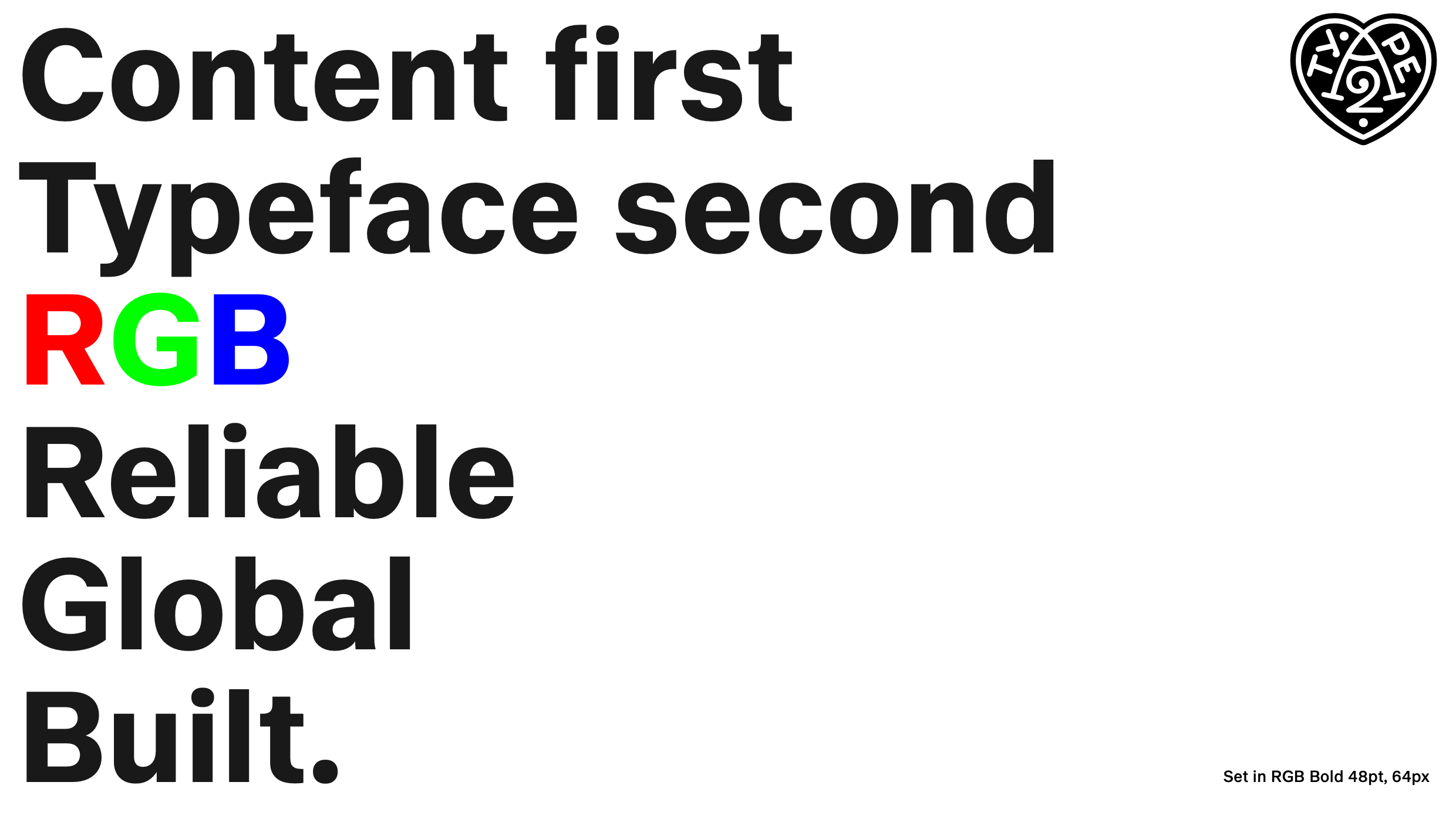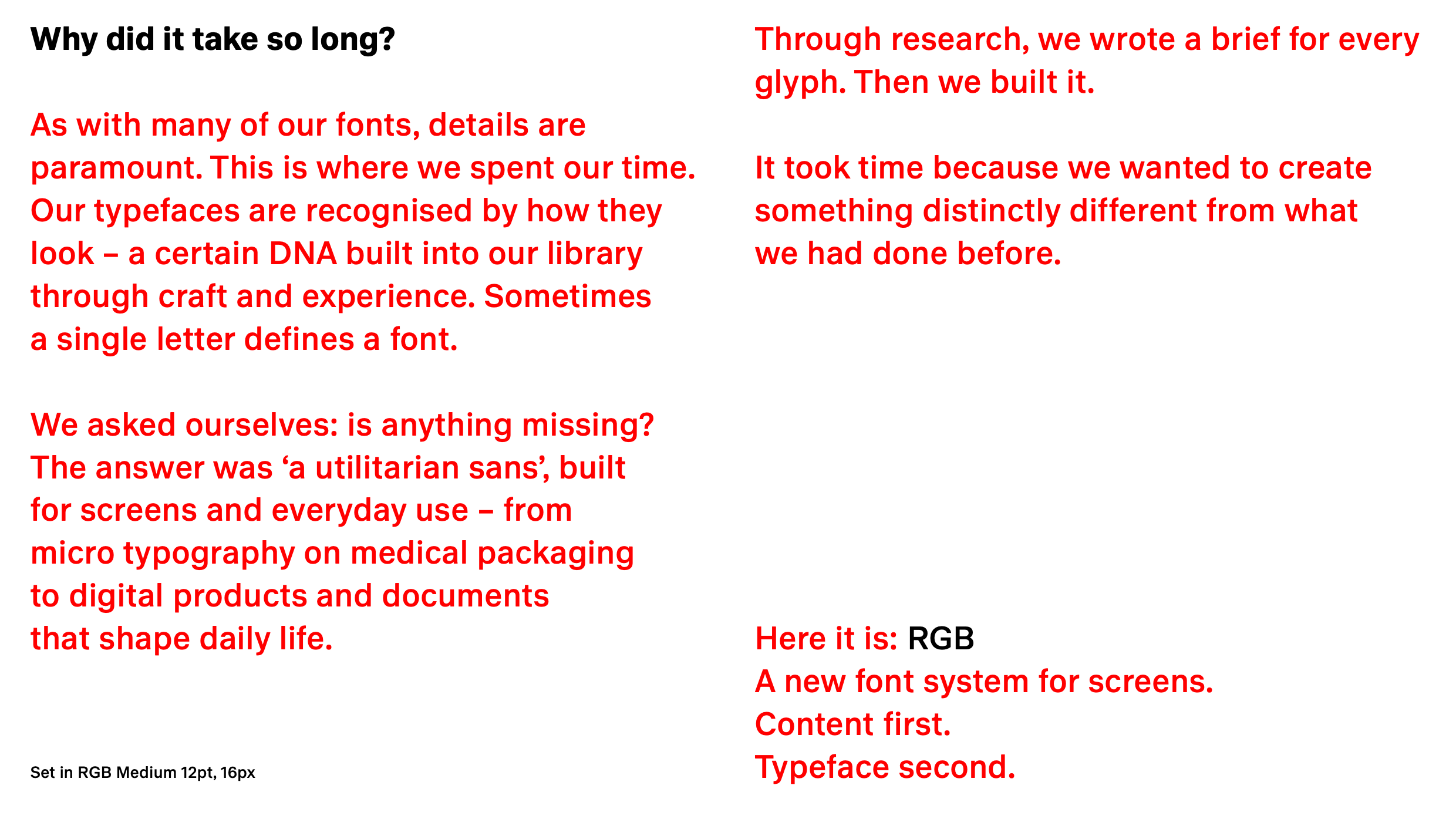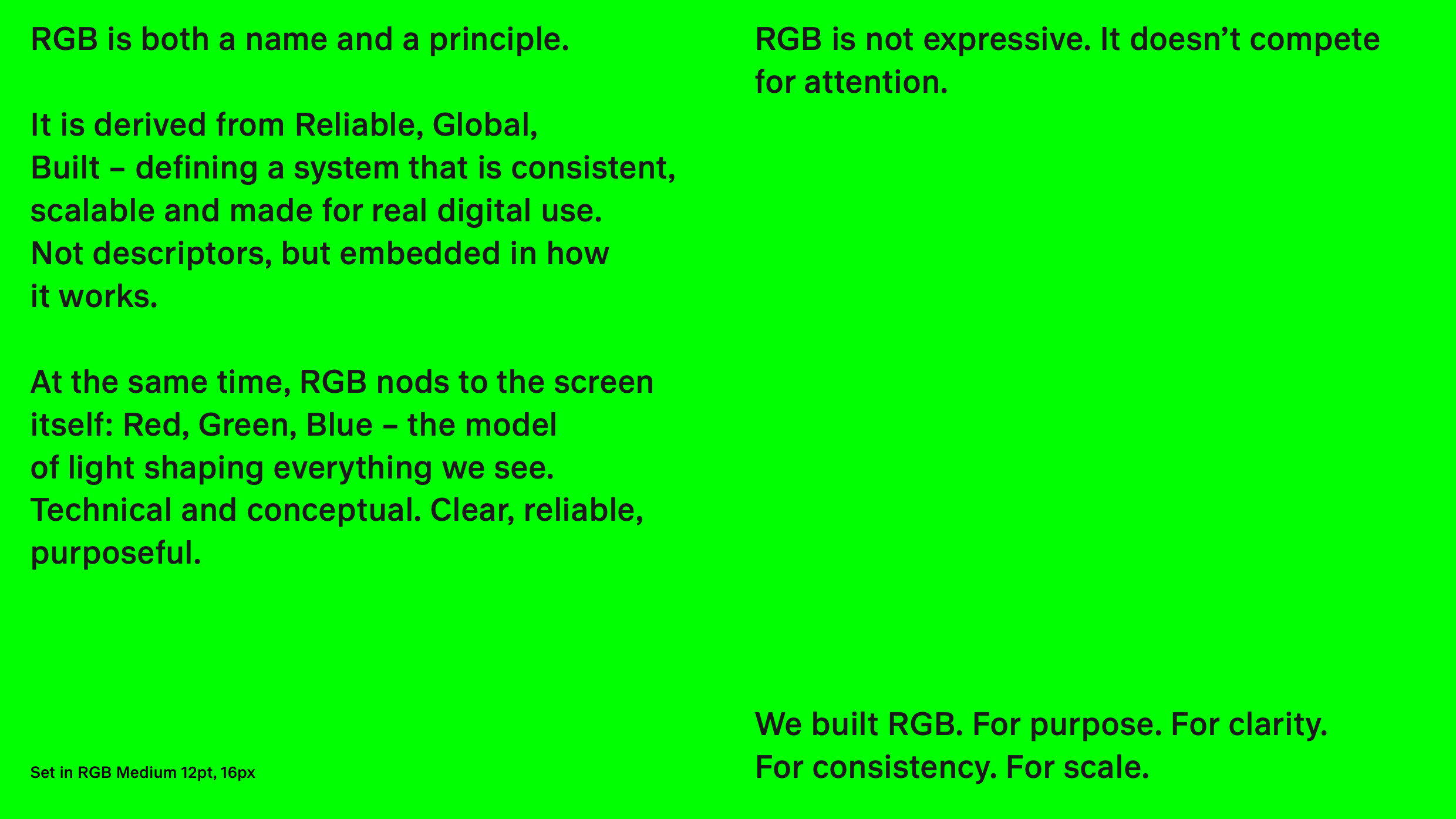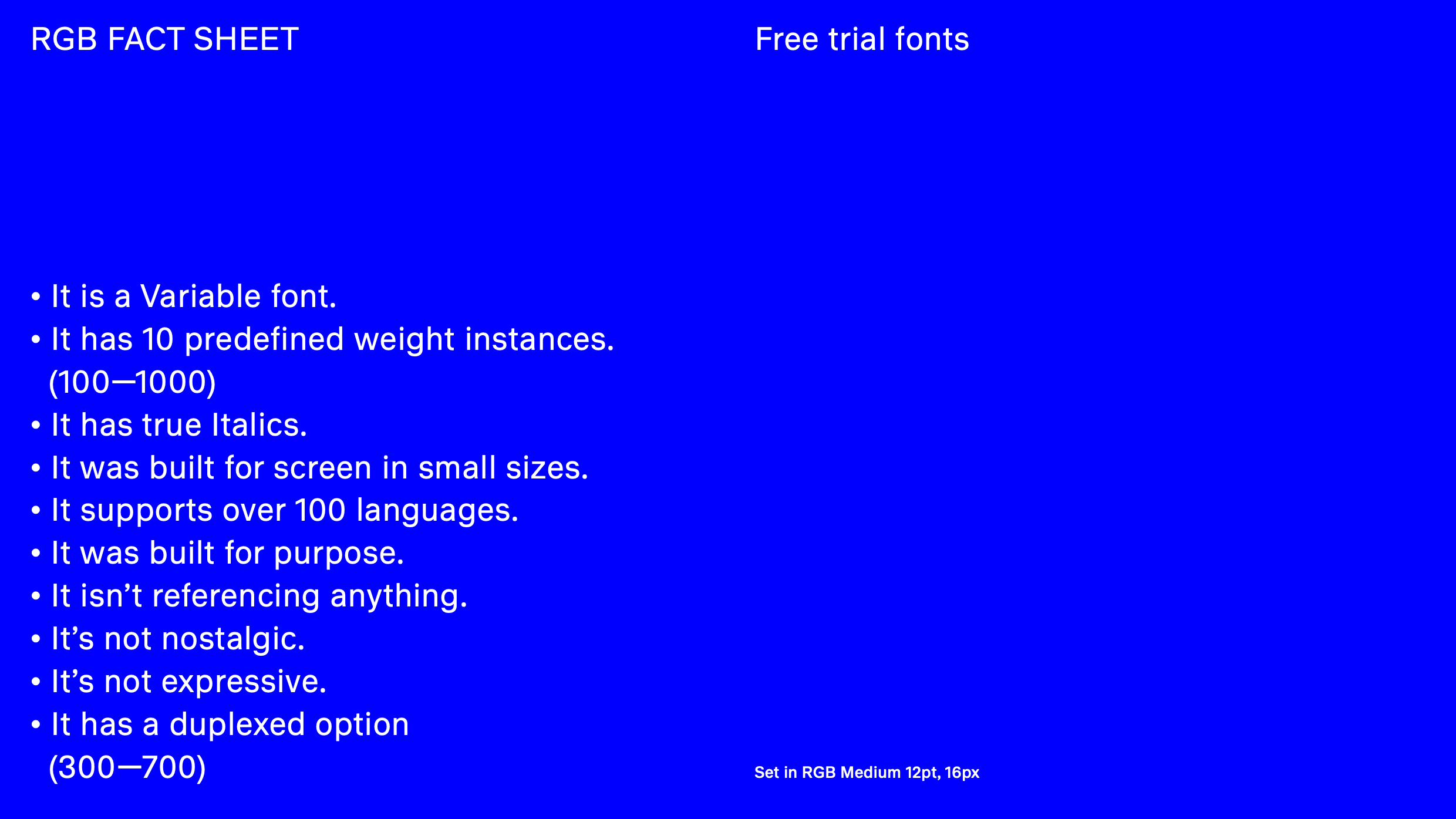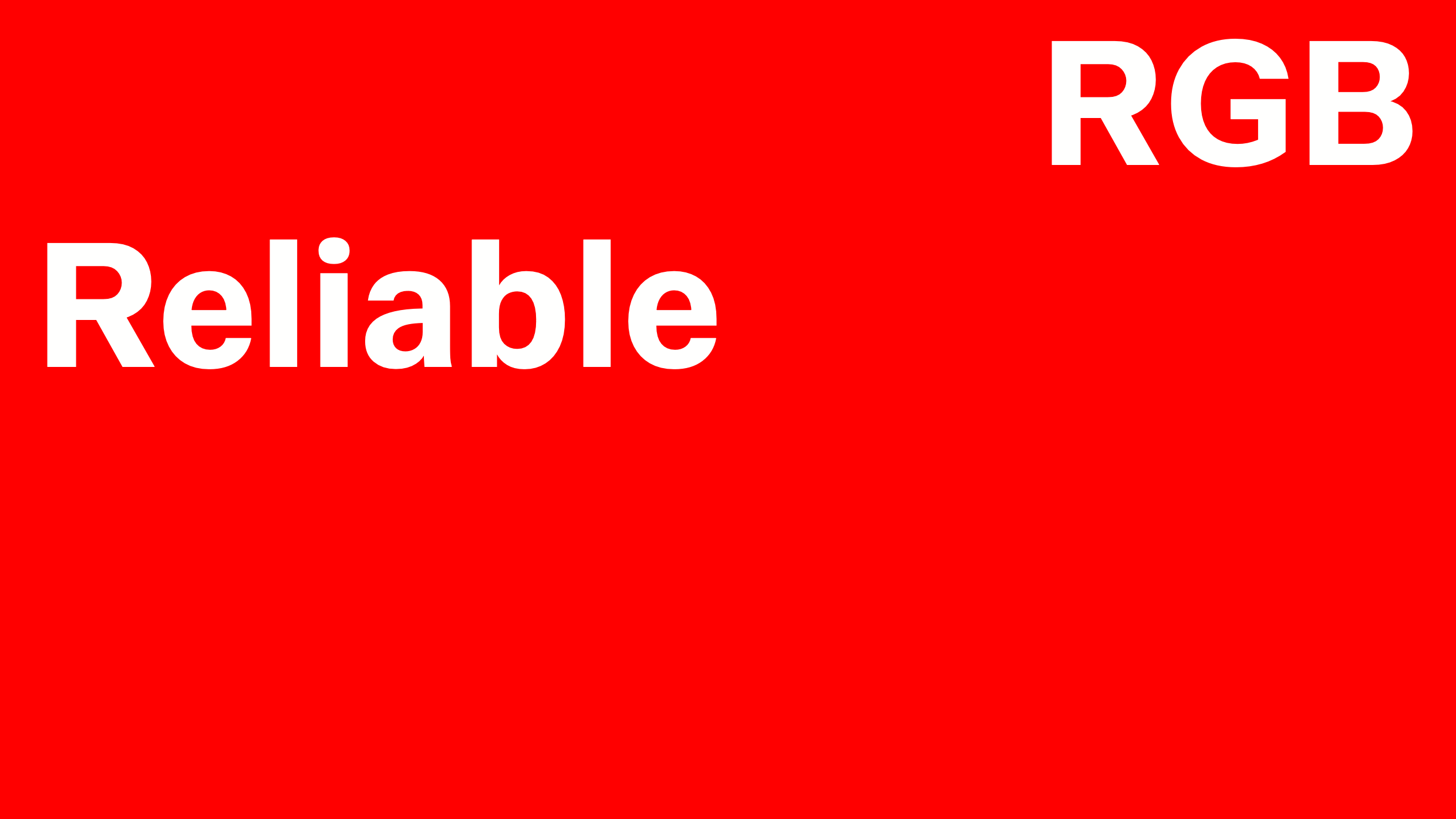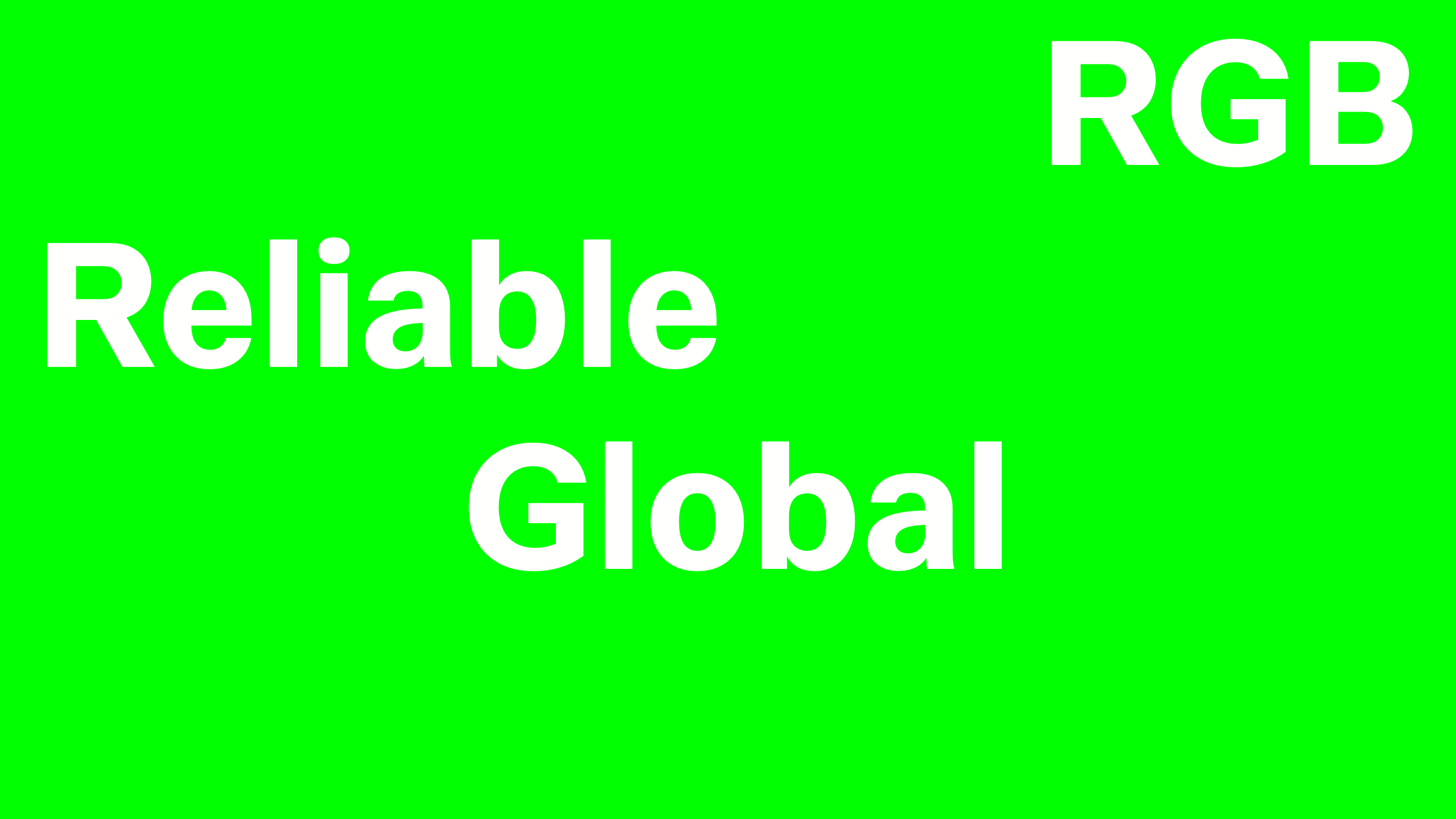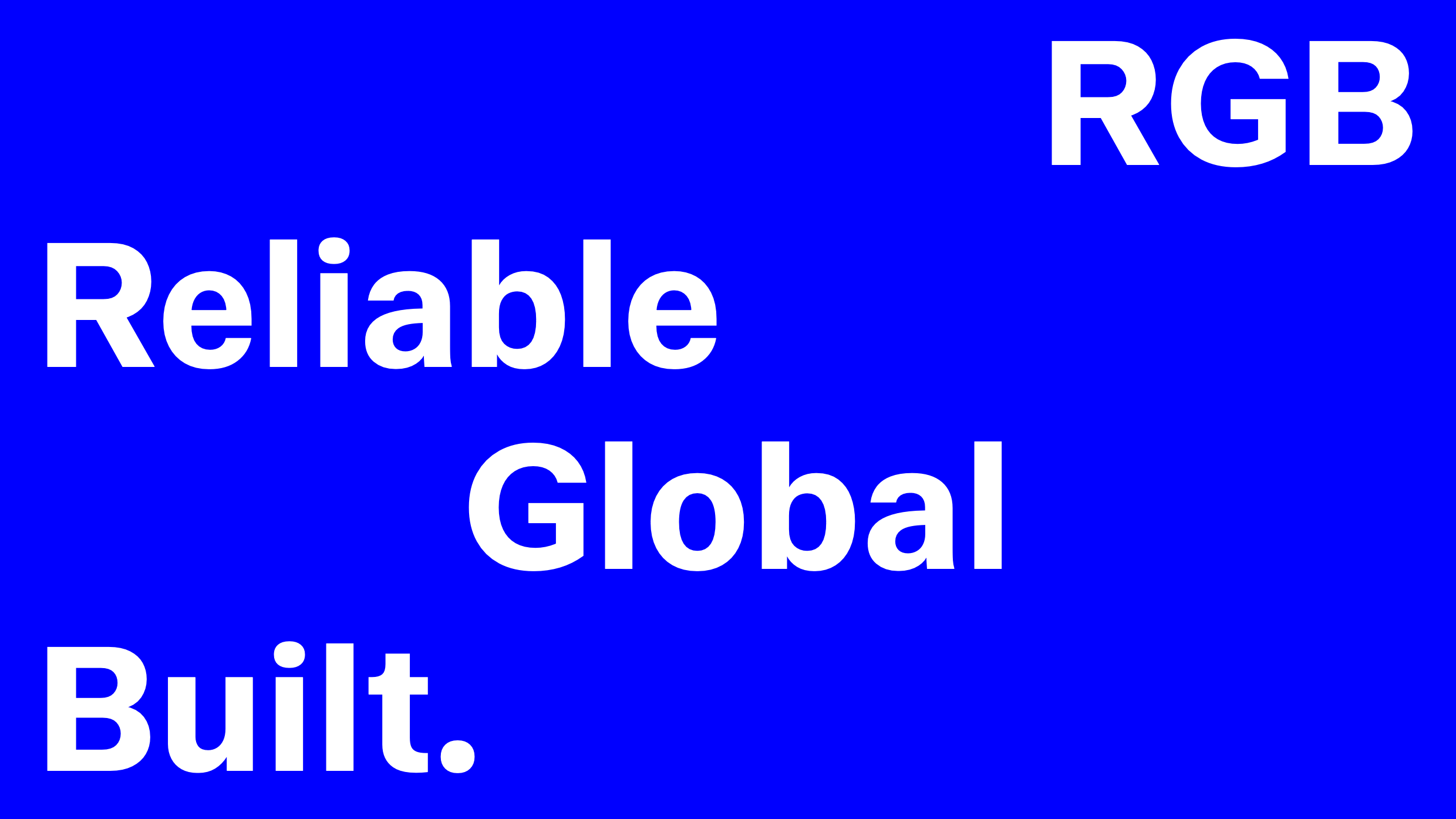
RGB isn’t referencing anything. It’s not nostalgic. It’s not expressive. It’s simply built for clarity, consistency, and scale. It behaves the same everywhere — across systems, platforms, and products. No surprises. Built for products used by millions, over years. It doesn’t flex. It doesn’t brand-speak. RGB works as hard as your interface does. It’s the typeface we’ve used throughout this website. RGB isn’t referencing anything. It’s not nostalgic. It’s not expressive. It’s simply built for clarity, consistency, and scale. It behaves the same everywhere — across systems, platforms, and products. No surprises. Built for products used by millions, over years. It doesn’t flex. It doesn’t brand-speak. RGB works as hard as your interface does. It’s the typeface we’ve used throughout this website.
| Font name: | RGB |
|---|---|
| Font category: | Sans |
| Styles: | Thin Thin Italic ExtraLight Italic Light Light Italic Regular Italic Medium Medium Italic SemiBold Italic Bold Bold Italic ExtraBold Italic Black Black Italic Heavy Heavy Italic |
| Script: | Latin |
| Manufacturer: | A2-TYPE |
| Designer: | Henrik Kubel |